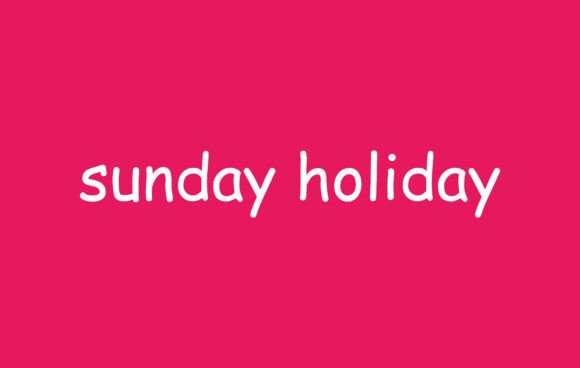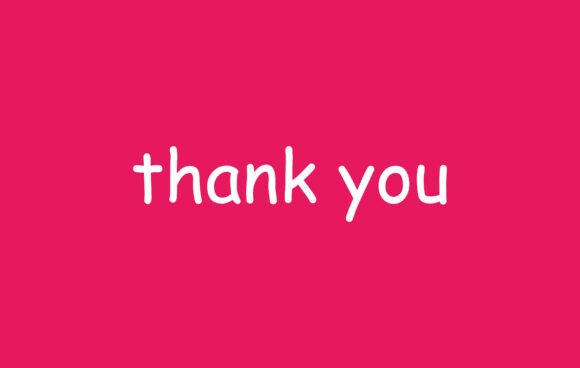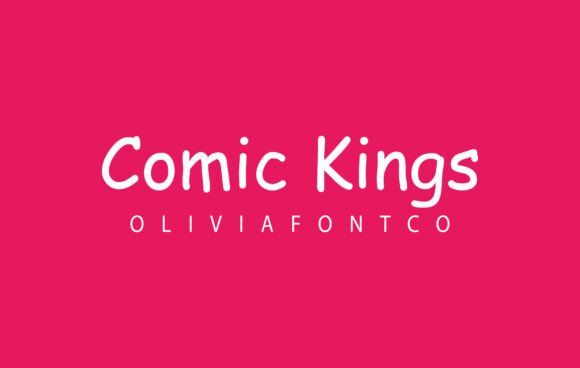
Introducing Comic Kings Font: The Ultimate Handwritten Font for Creative Projects
Are you a designer or crafter looking for a unique and romantic font to elevate your creative projects? Look no further than Comic Kings Font, an authentic handwritten font that is sure to capture the hearts of your audience. With its elegant and legible design, this font is perfect for a wide range of applications, from magazine headlines and social media graphics to branding, wedding invitations, and more.
The Story Behind Comic Kings Font
Comic Kings Font is an expertly designed font that boasts a romantic touch, making it a true favorite among designers and crafters. Its authentic handwritten style gives it a personal and approachable feel, perfect for creating a connection with your audience. Whether you’re looking to add a touch of whimsy or sophistication to your designs, Comic Kings Font is the perfect choice.
Key Features of Comic Kings Font
So, what makes Comic Kings Font so special? Here are just a few of its key features:
- Authentic Handwritten Style: Comic Kings Font is a genuine handwritten font, giving it a unique and personal touch.
- Romantic Touch: With its elegant and flowing design, this font is perfect for creating romantic and whimsical designs.
- Legible and Versatile: Comic Kings Font is highly legible, making it perfect for use as both title and body text.
- Wide Range of Applications: From magazine headlines and social media graphics to branding, wedding invitations, and more, this font is perfect for a wide range of creative projects.
Why Choose Comic Kings Font?
With so many fonts to choose from, why should you choose Comic Kings Font for your next project? Here are just a few reasons:
- Unique and Eye-Catching: Comic Kings Font is a one-of-a-kind font that is sure to grab the attention of your audience.
- Easy to Read: With its clear and legible design, this font is perfect for creating designs that are easy to read and understand.
- Customizable: Comic Kings Font is highly customizable, allowing you to adjust the font to suit your specific design needs.
- Support for Multiple Languages: This font supports multiple languages, making it perfect for designers and crafters who work with international clients.
How to Use Comic Kings Font in Your Designs
Using Comic Kings Font in your designs is easy. Here are a few tips to get you started:
- Pair it with Other Fonts: Comic Kings Font pairs well with other fonts, making it perfect for use in combination with other typefaces.
- Experiment with Different Sizes: This font looks great in a variety of sizes, from large headlines to smaller body text.
- Add a Personal Touch: Use Comic Kings Font to add a personal touch to your designs, making them more approachable and relatable.
Inspiration for Your Next Project
Still looking for inspiration for your next project? Here are a few ideas to get you started:
- Wedding Invitations: Use Comic Kings Font to create beautiful and romantic wedding invitations that will set the tone for the big day.
- Social Media Graphics: Create eye-catching social media graphics using Comic Kings Font, perfect for grabbing the attention of your followers.
- Branding Materials: Use this font to create custom branding materials, such as business cards and letterheads, that reflect your brand’s personality.
- Magazine Headlines: Add a touch of elegance and sophistication to your magazine headlines with Comic Kings Font.
In conclusion, Comic Kings Font is a unique and romantic handwritten font that is perfect for designers and crafters looking to elevate their creative projects. With its elegant and legible design, this font is versatile and can be used in a wide range of applications. Whether you’re looking to create wedding invitations, social media graphics, or branding materials, Comic Kings Font is the perfect choice.